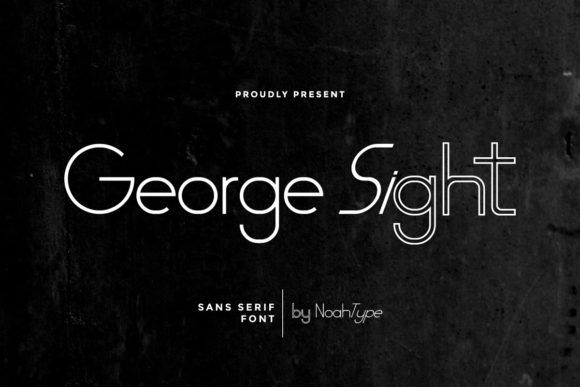
Meet George Sight - the font that's redefining the art of PowerPoint presentations. George Sight is a type design masterpiece that transforms your slides into captivating visual experiences. Its unique, contemporary style injects a touch of authenticity and exclusivity into every word you write.
Step into a world where your titles command attention, and your messages resonate with impact. George Sight empowers you to craft presentations that captivate your audience, leaving an unforgettable impression.
Its modern sensibilities make George Sight the perfect choice for startups and tech companies seeking to convey their innovative spirit. Its sharp lines and crisp curves bring a touch of sophistication that elevates your brand and sets you apart from the crowd.
With George Sight, you're not just presenting slides - you're painting a picture of success. Its versatility knows no bounds, stretching across diverse platforms and applications. Unleash your creativity and watch your presentations soar to new heights.
Don't settle for ordinary fonts that fade into the background. Embrace George Sight and elevate your presentations to extraordinary. Let your words take center stage, radiating confidence and leaving a lasting impact.